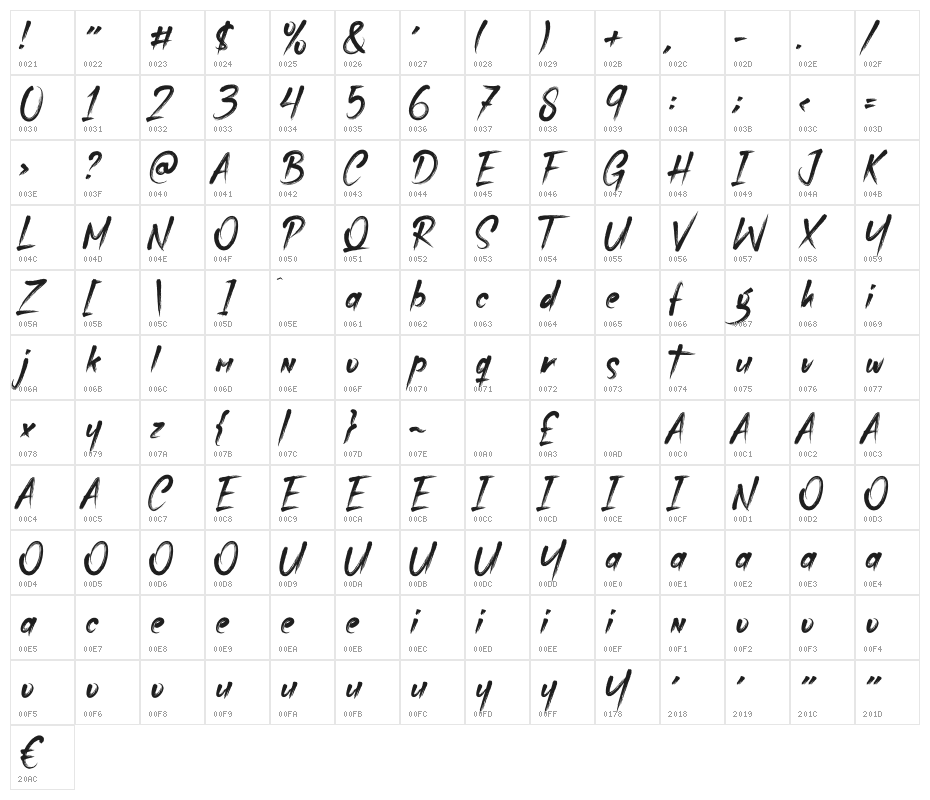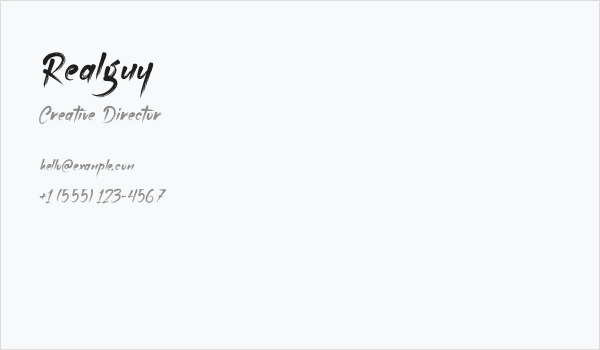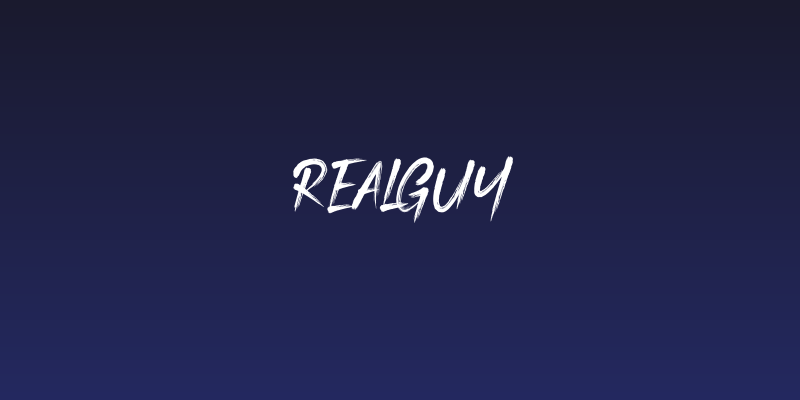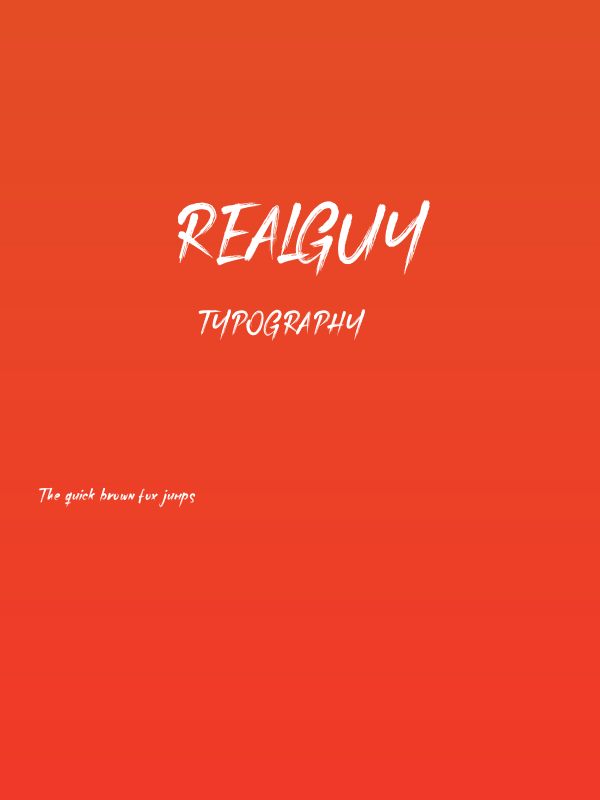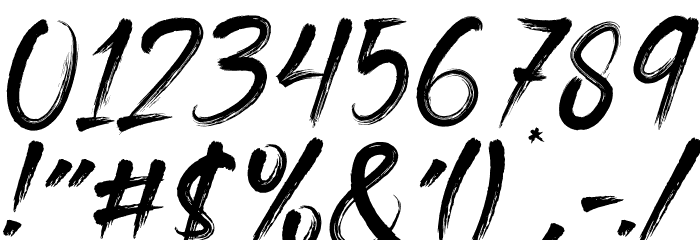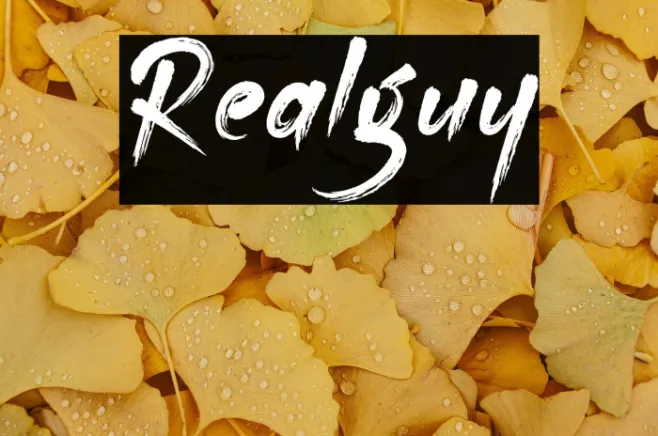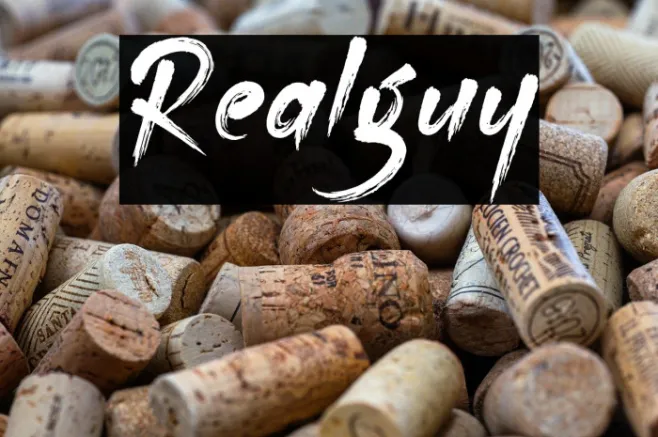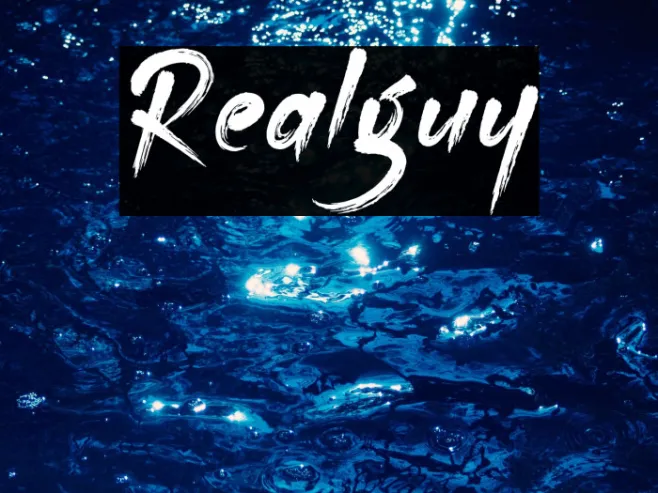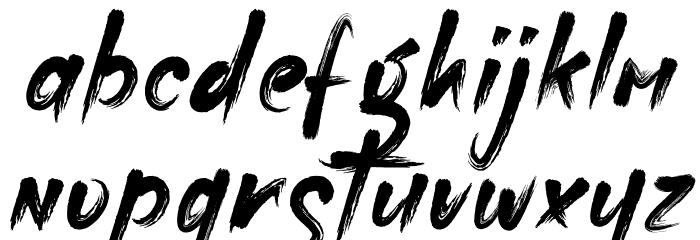
Realguy Font
Realguy Description
This font features a dynamic and energetic brush script style, characterized by its bold and expressive strokes. The letters have a hand-painted appearance, with varying thickness and a slightly rough texture that adds a sense of movement and spontaneity. The uppercase and lowercase letters maintain a consistent style, with a slight slant that enhances the fluidity of the design. The numerals and special characters are equally bold and expressive, making them stand out. This font is ideal for projects that require a personal touch or an artistic flair.
| Proposed Projects | Ideal for branding, posters, album covers, and any project that benefits from a personal, artistic touch. |